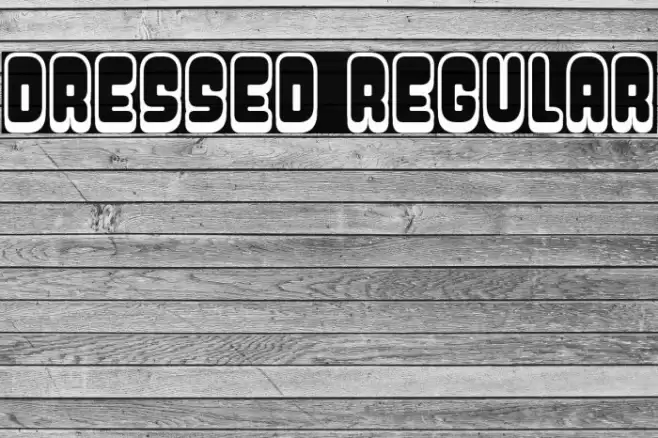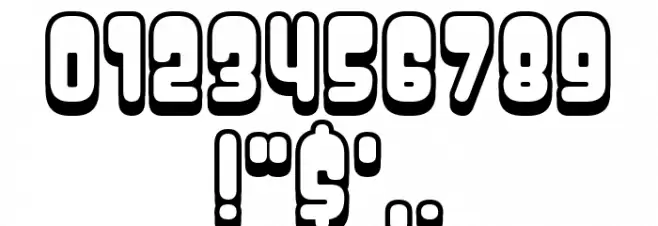
Dressed Regular Font
Dressed Regular Description
This font features a bold, playful style with rounded edges and a thick outline that gives it a cartoon-like appearance. The characters are uniform in width, creating a cohesive and balanced look. The uppercase and lowercase letters maintain a consistent height, enhancing readability while adding a touch of whimsy. The numbers and special characters follow the same design principles, ensuring a harmonious overall aesthetic. This font is ideal for projects that require a fun and engaging visual element, making it suitable for children's books, posters, and playful branding.
A bold, playful font with rounded edges and a thick outline, perfect for fun and engaging designs from Uncategorized fonts.
- Proposed Projects: Children's books, playful branding, posters, and cartoon-themed designs.
- Overall Style: Playful, Cartoon-like